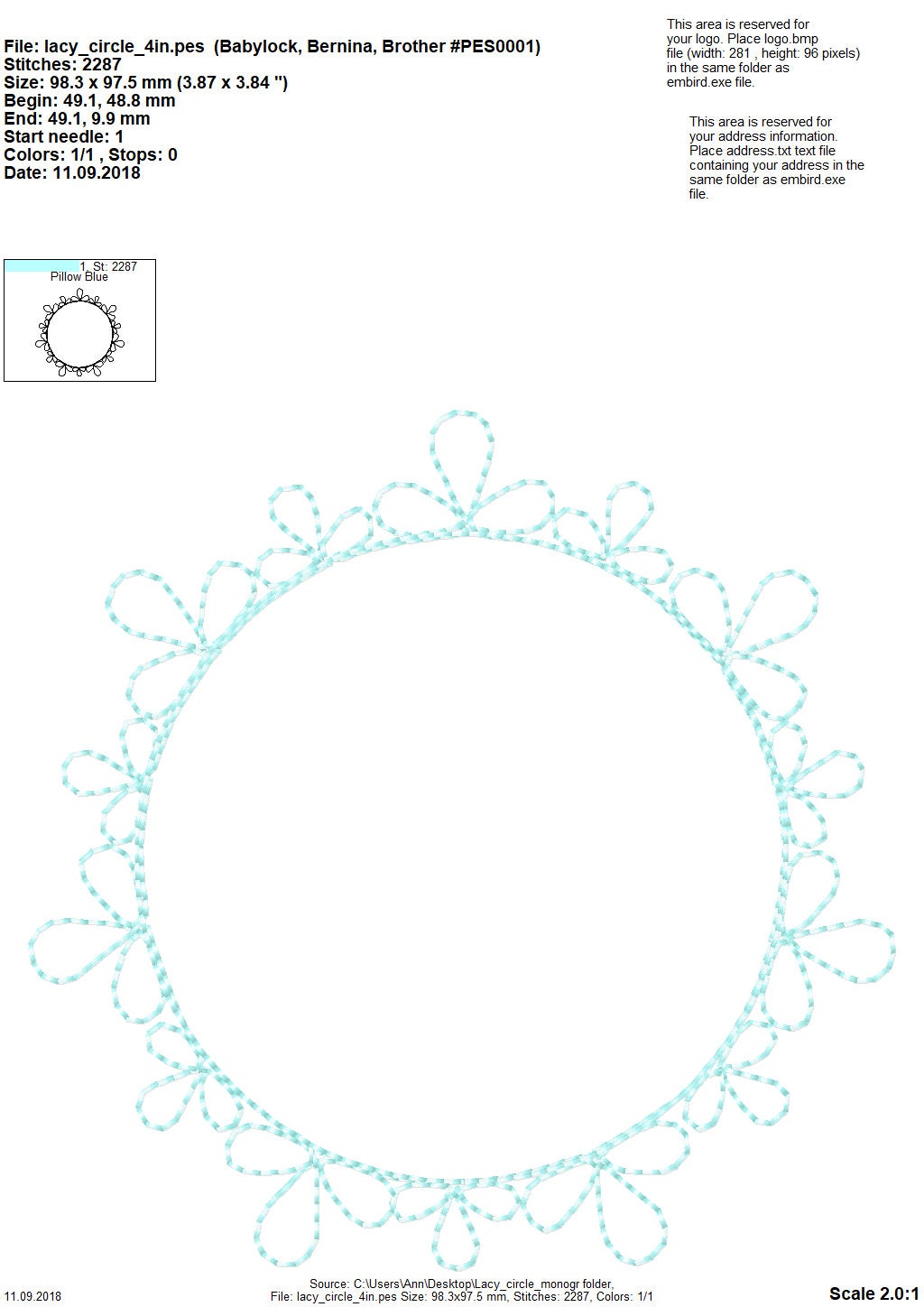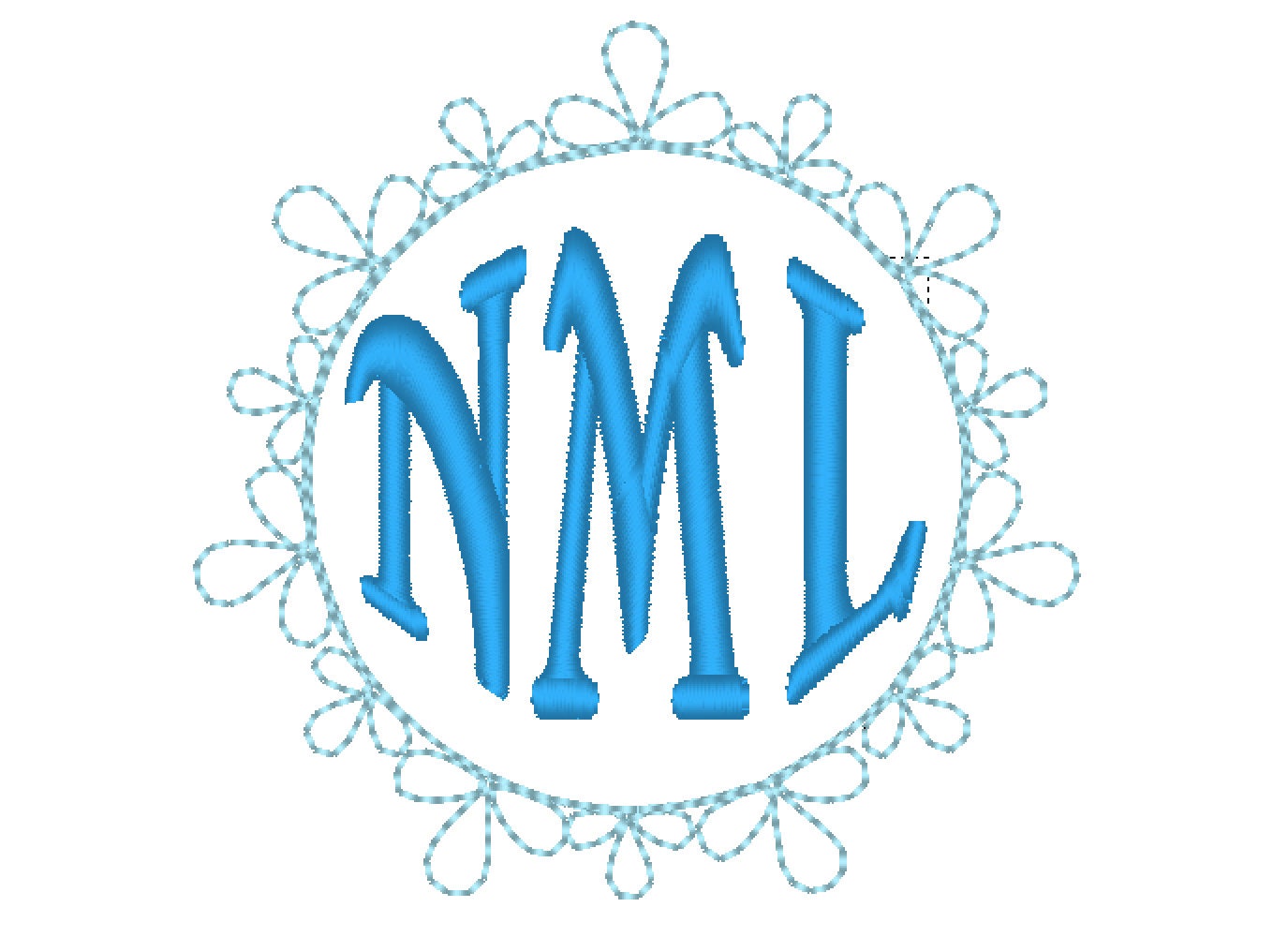
Laurel Leaf circle monogram frame and monogram font alphabet letters, classy Circle monogram machine embroidery designs in assorted sizes
Make gorgeous three letter circle monograms quickly and easily.
This set includes 78 uppercase letters to complete 3 letter monogram in satin stitch.
Also included laurel leaves circle frame.